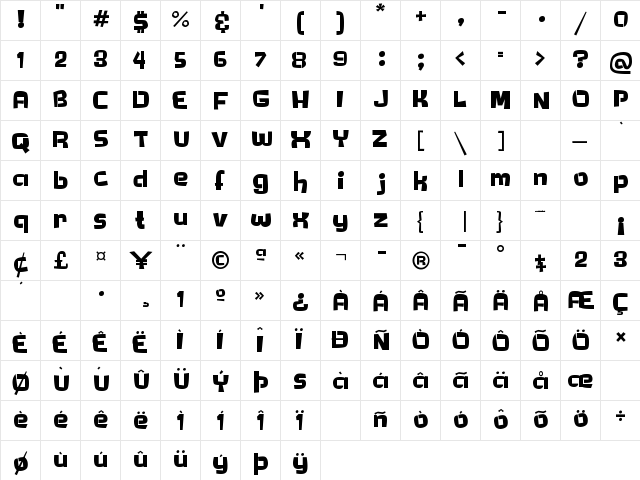
Timi Timi Regular
| Designer | Timi Timi |
Design Context for Timi Timi Typeface
Timi Timi is a composed and adaptable typeface that performs quietly and consistently across a wide range of design contexts.